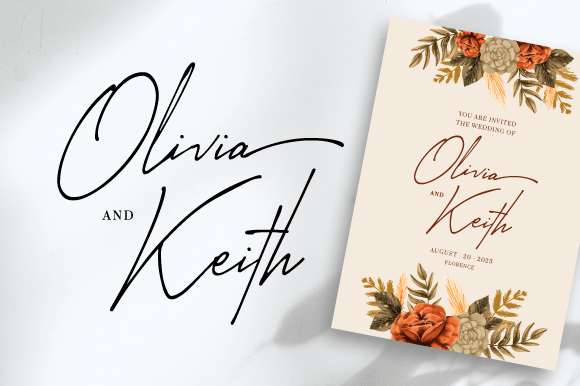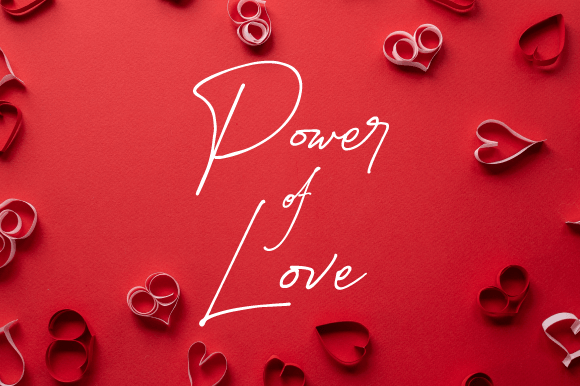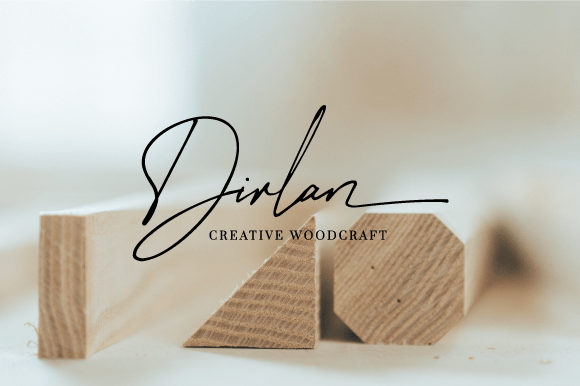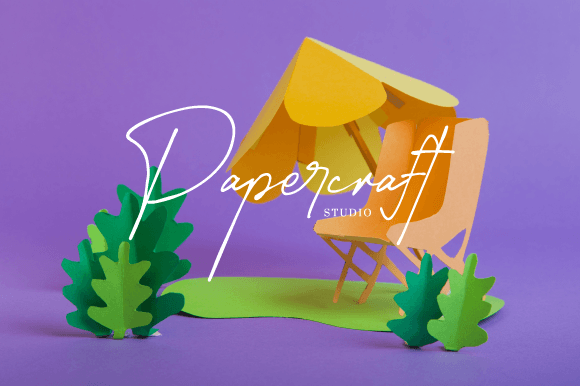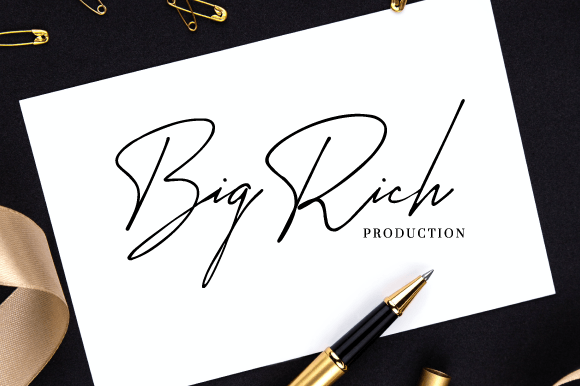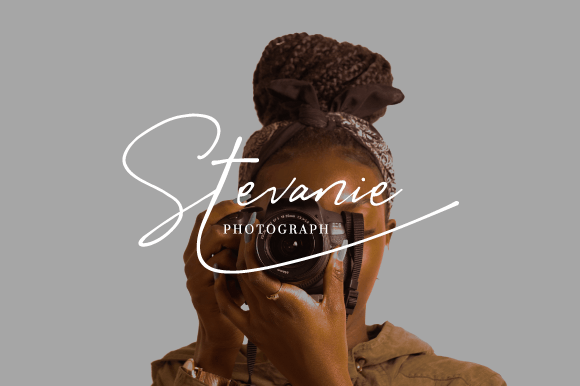
Introduction to Jembarrati Signature Font
Have you ever sat in front of your computer, staring blankly at a blank document, trying to find the perfect font to bring your creative project to life? We’ve all been there. But what if you stumbled upon a font that not only captured the essence of your design but also added a touch of elegance and sophistication? Enter the Jembarrati Signature Font, a high-quality, enchanting handwritten script font that’s sure to elevate any design project.
With its dynamic strokes and neutral, masculine, or feminine feel, the Jembarrati Signature Font is the perfect design resource for any creative project. Whether you’re working on a modern or classic design, this font is sure to bring a touch of personality and style to your work. And the best part? It’s free to download, making it a valuable resource for designers of all levels.
Key Features of Jembarrati Signature Font
- Unique and elegant design suitable for creative projects, perfect for adding a personal touch to designs.
- High-quality font with a transparent background, ideal for use as a design resource in various creative projects.
- Includes a wide range of characters, including uppercase and lowercase letters, numbers, and special characters.
Honest Review: Jembarrati Signature Font
As a designer, I’m always on the lookout for high-quality fonts to elevate my creative projects. Recently, I came across the Jembarrati Signature Font, which caught my attention with its elegant and sophisticated design.
Here’s what I like about it: ✨ It’s a great free download that offers a lot of value for designers on a budget. ✨ The font is highly customizable, making it perfect for a wide range of design projects. ✨ The transparent background is a nice touch, allowing me to easily layer the font over different backgrounds.
However, there are a few limitations: ⚠️ The font is only available in a few weights, which might limit its use in certain design scenarios. ⚠️ Some of the characters may not be perfectly aligned, which can be a bit frustrating.
Overall, I’m impressed with the Jembarrati Signature Font. It’s a solid design resource that’s perfect for designers who want to add a touch of elegance to their projects. While it’s not perfect, I appreciate the value it offers and would definitely recommend it to my fellow designers.
- Perfect for creative projects that require a sophisticated touch
- Highly customizable with multiple weights and styles
- Includes transparent background for easy layering
Tips for Getting the Most Out of Jembarrati Signature Font
For the best results, use Jembarrati Signature Font with a transparent background to create a clean and modern look. You can also experiment with different font sizes and styles to add visual interest to your design.
Jembarrati Signature Font is perfect for a wide range of creative projects, including:
Business cards
Letterheads
Social media graphics
Presentations
Documents